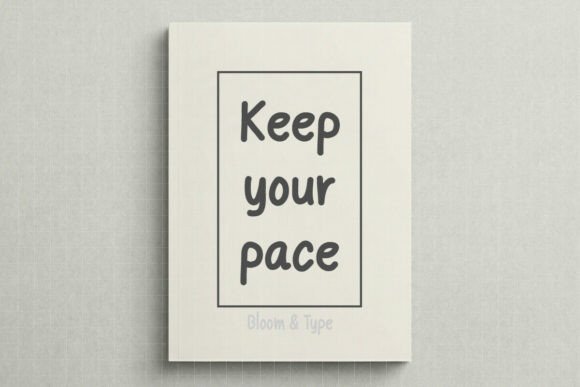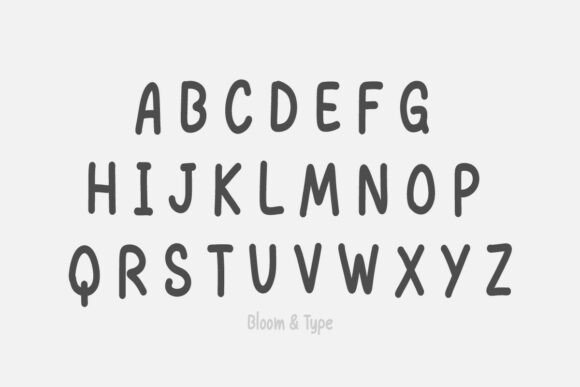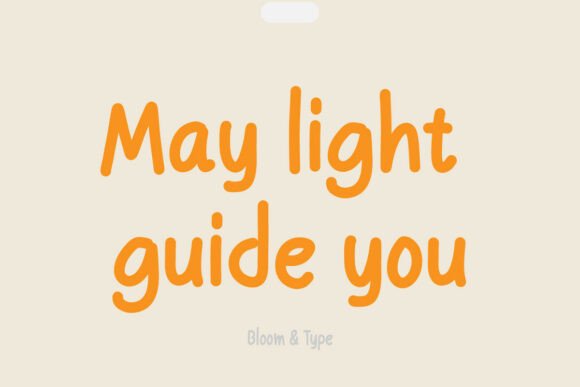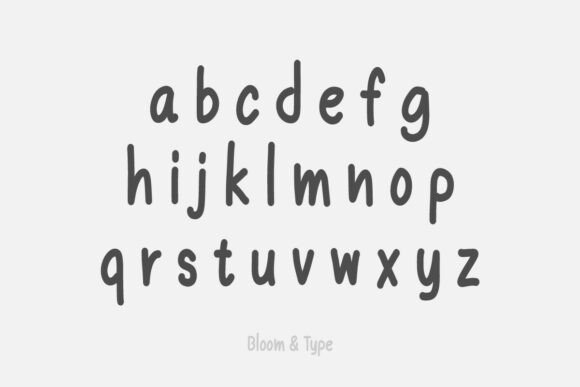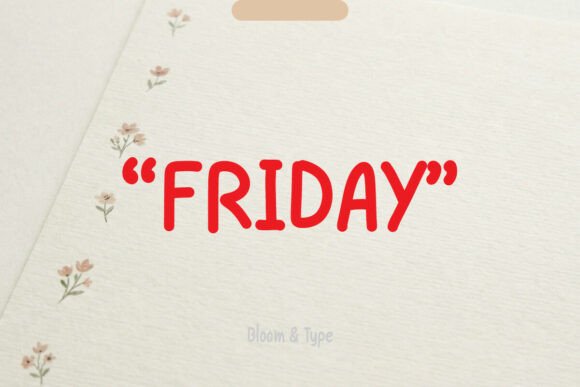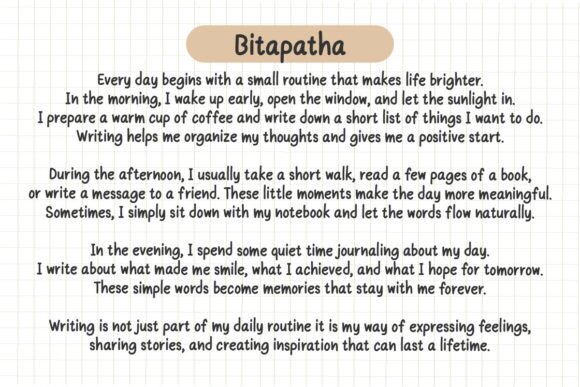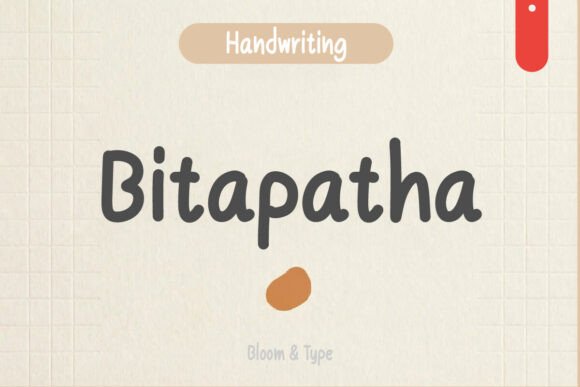
Introducing Bitapatha Font: The Soft Handwritten Style for Your Designs
In the world of typography, fonts play a crucial role in conveying the tone and personality of a design. If you’re looking for a font that exudes warmth, friendliness, and approachability, look no further than Bitapatha Font. This soft handwritten font is designed to bring a calm and gentle feel to your designs, making it perfect for a wide range of creative projects.
The Characteristics of Bitapatha Font
Bitapatha Font is characterized by its slightly rounded characters, smooth, and natural flow. The font’s design gives off a simple yet expressive handwritten style that is both clean and readable. The rounded edges and smooth curves of the characters create a sense of warmth and approachability, making it ideal for designs that require a personal touch.
Perfect for a Variety of Design Needs
Bitapatha Font is a versatile font that can be used for a variety of design needs. Whether you’re creating inspirational quotes, lifestyle content, or modern branding, this font helps your message feel more natural and genuine. Its clean and readable shapes make it easy to use, while still maintaining a unique handwritten personality.
Use Bitapatha Font for:
- Quotes: Add a personal touch to your inspirational quotes with Bitapatha Font’s soft and gentle style.
- Branding: Create a warm and welcoming brand identity with Bitapatha Font’s approachable feel.
- Packaging: Add a touch of personality to your product packaging with Bitapatha Font’s unique handwritten style.
- Social Media Posts: Make your social media posts stand out with Bitapatha Font’s clean and readable shapes.
- Creative Projects: Bring a personal touch to your creative projects, such as handmade crafts, with Bitapatha Font’s soft and gentle style.
What Sets Bitapatha Font Apart
Bitapatha Font includes a wide range of characters, including uppercase, lowercase, numbers, punctuation, and multilingual characters. This makes it flexible for a wide range of design needs, allowing you to use it for various projects and languages.
Bitapatha Font offers several benefits for designers and crafters, including:
- Ease of use: The font’s clean and readable shapes make it easy to use, even for those who are new to design.
- Unique personality: Bitapatha Font’s handwritten style gives your designs a unique and personal touch.
- Versatility: The font’s flexibility makes it suitable for a wide range of design needs.
- Time-saving: With Bitapatha Font, you can create professional-looking designs in no time.
Tips for Using Bitapatha Font
Here are some tips for using Bitapatha Font effectively:
- Pair it with other fonts: Bitapatha Font works well when paired with other fonts, such as sans-serif fonts, to create a visually appealing design.
- Experiment with colors: Try using different colors to add depth and interest to your design.
- Use it for headings and body text: Bitapatha Font is suitable for both headings and body text, making it a great choice for creating cohesive designs.
In conclusion, Bitapatha Font is a soft handwritten font that brings a calm and friendly feeling to your designs. Its unique characteristics, versatility, and ease of use make it perfect for a wide range of design needs. Whether you’re a designer or crafter, Bitapatha Font is a great choice for adding a personal touch to your projects. Try it out today and see the difference it can make in your designs!